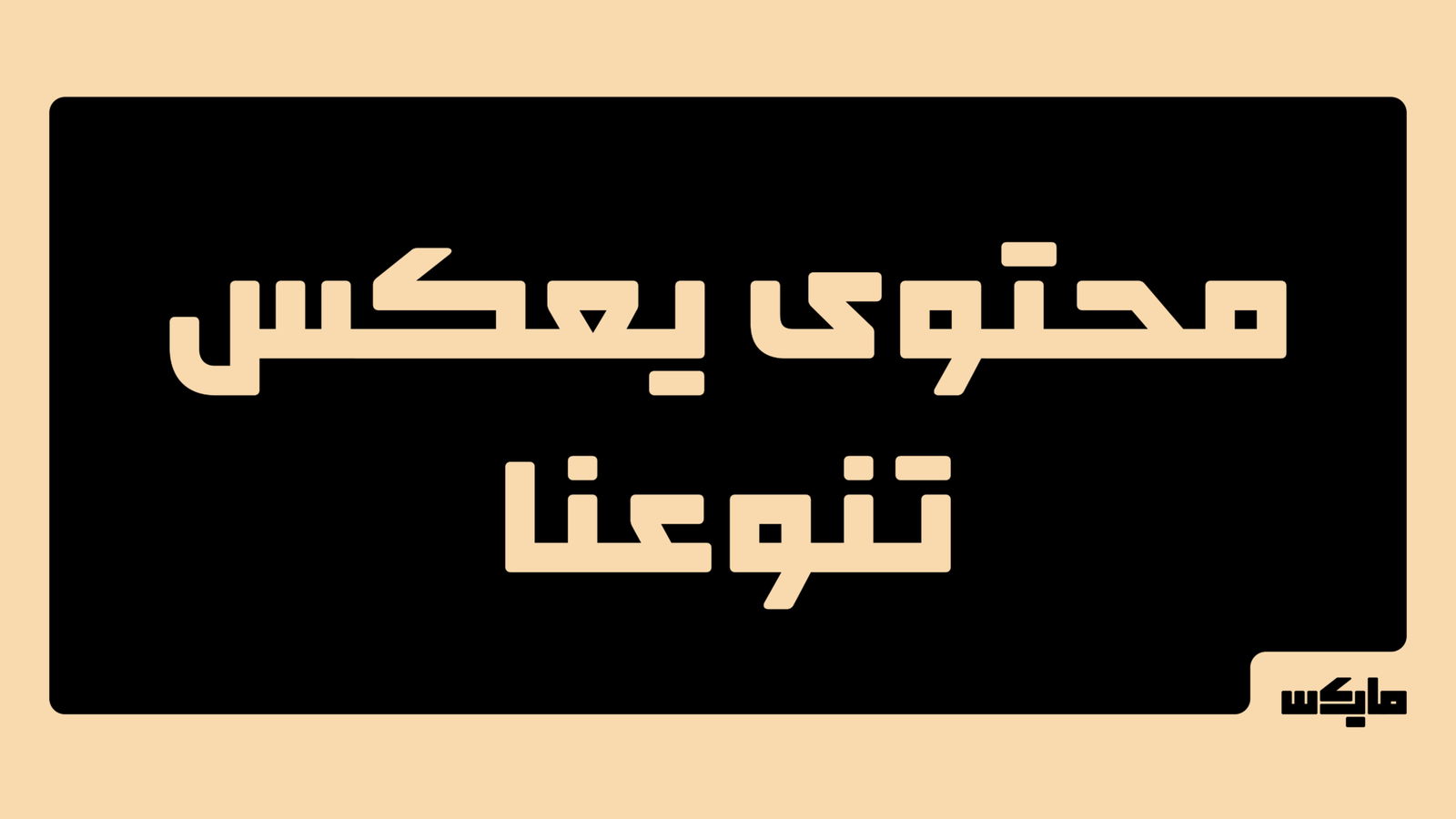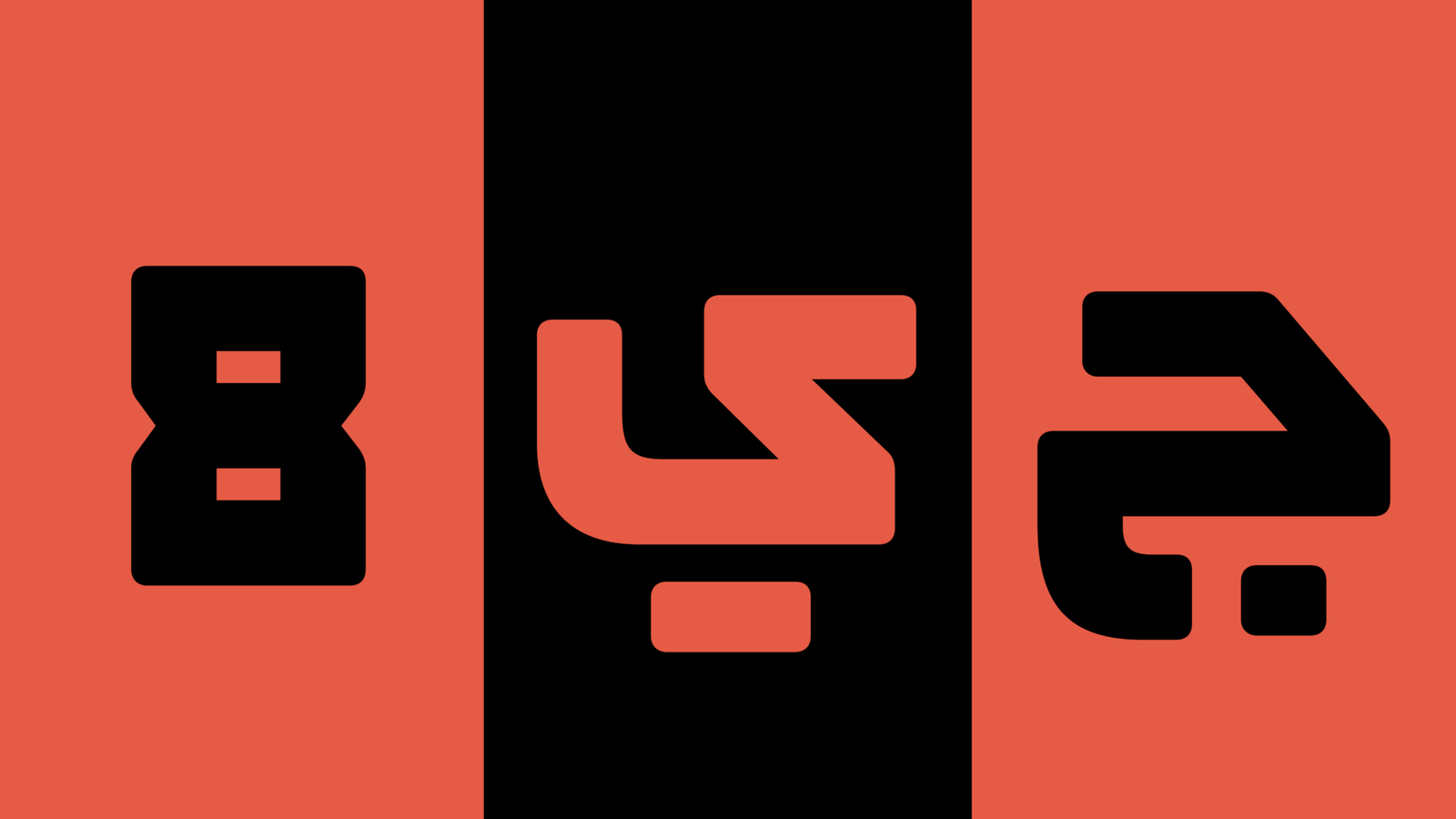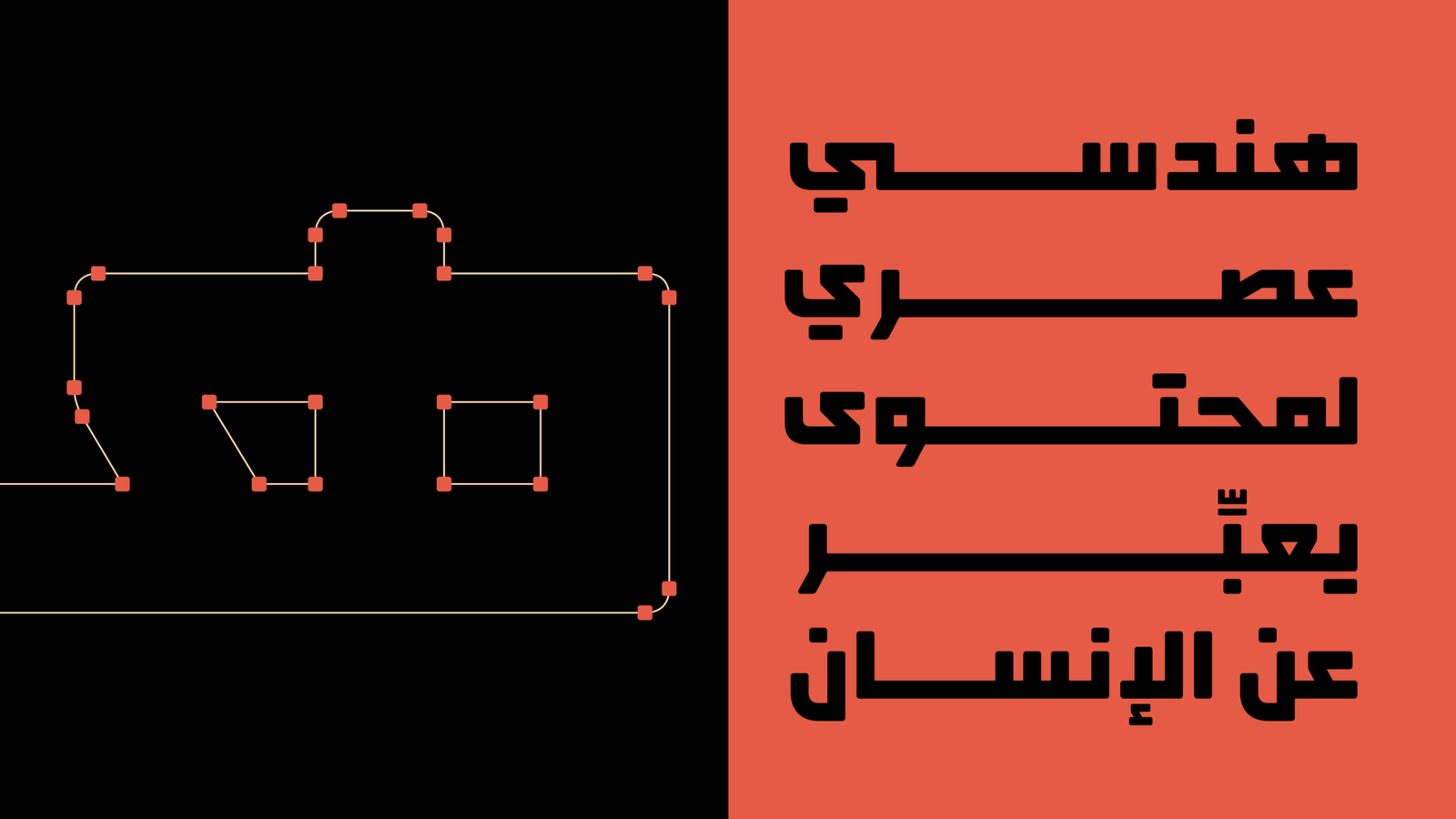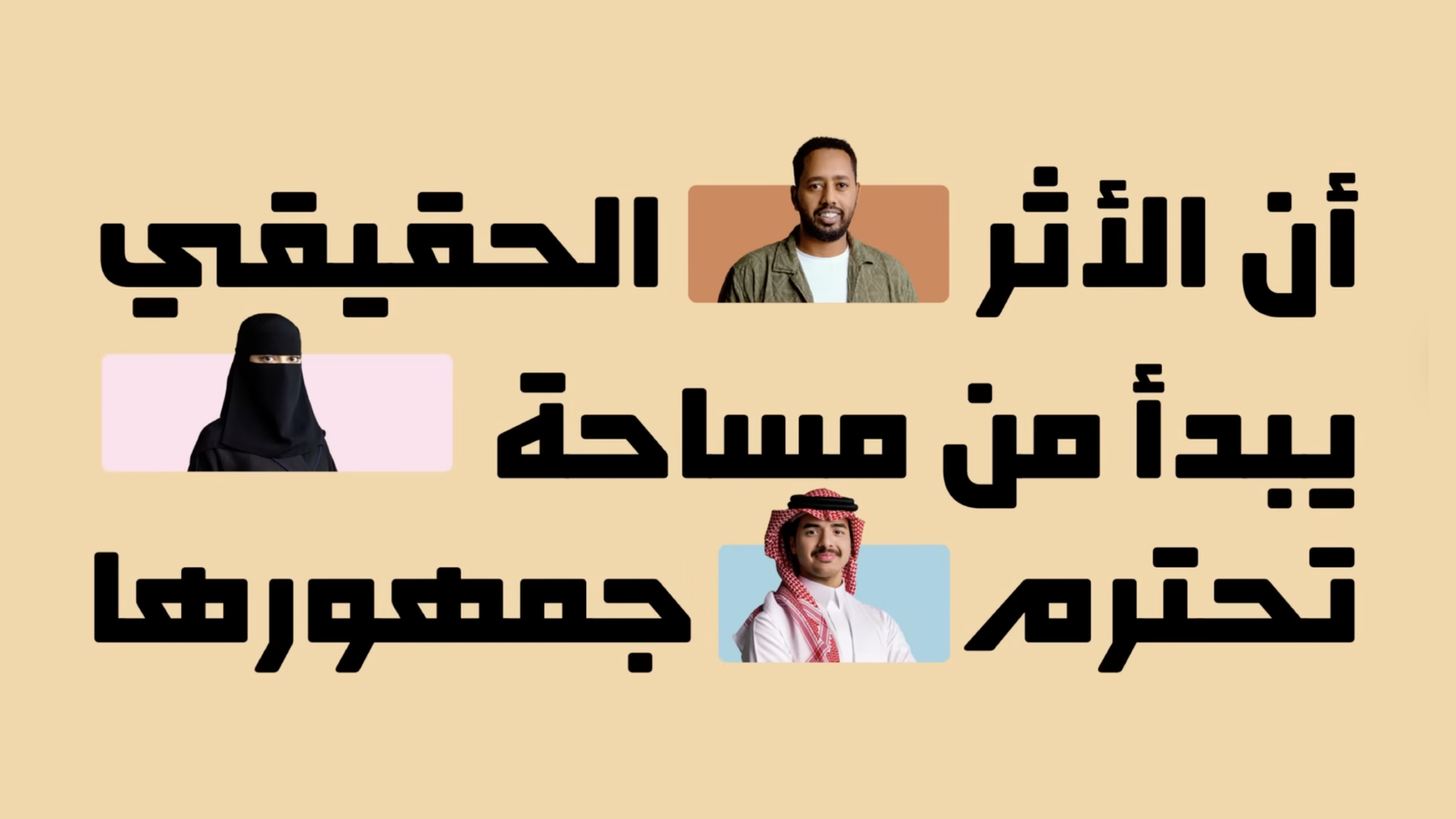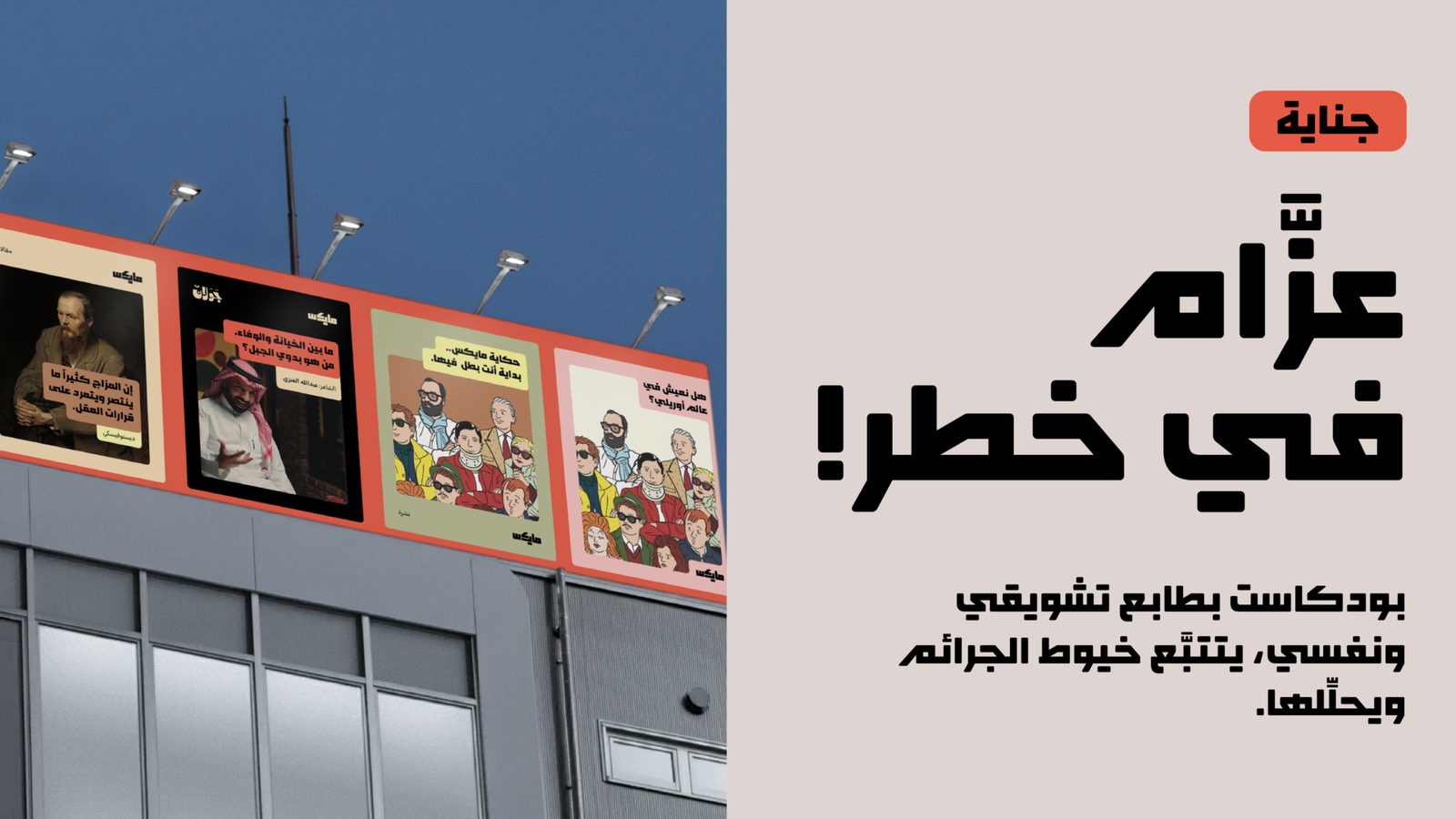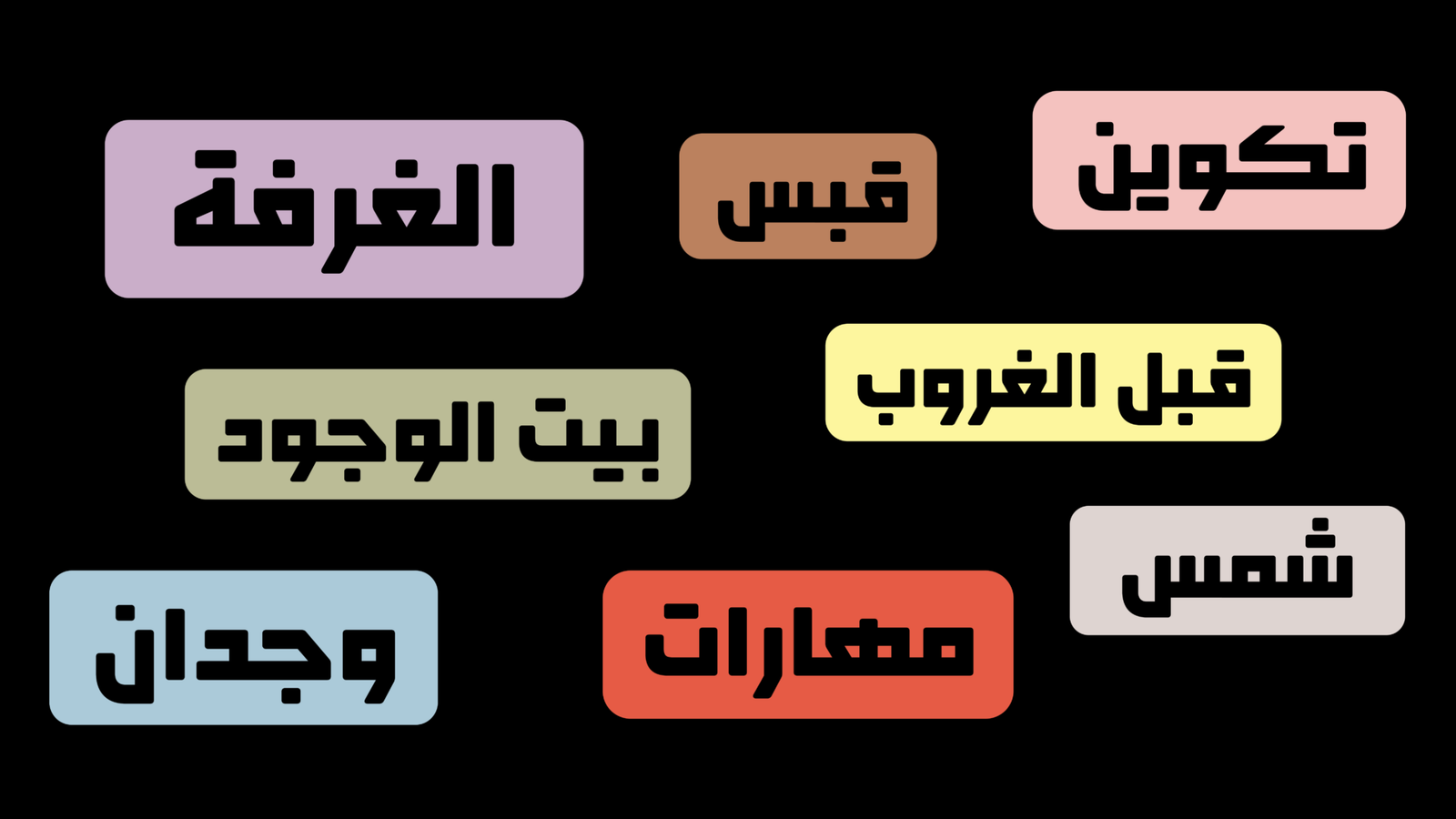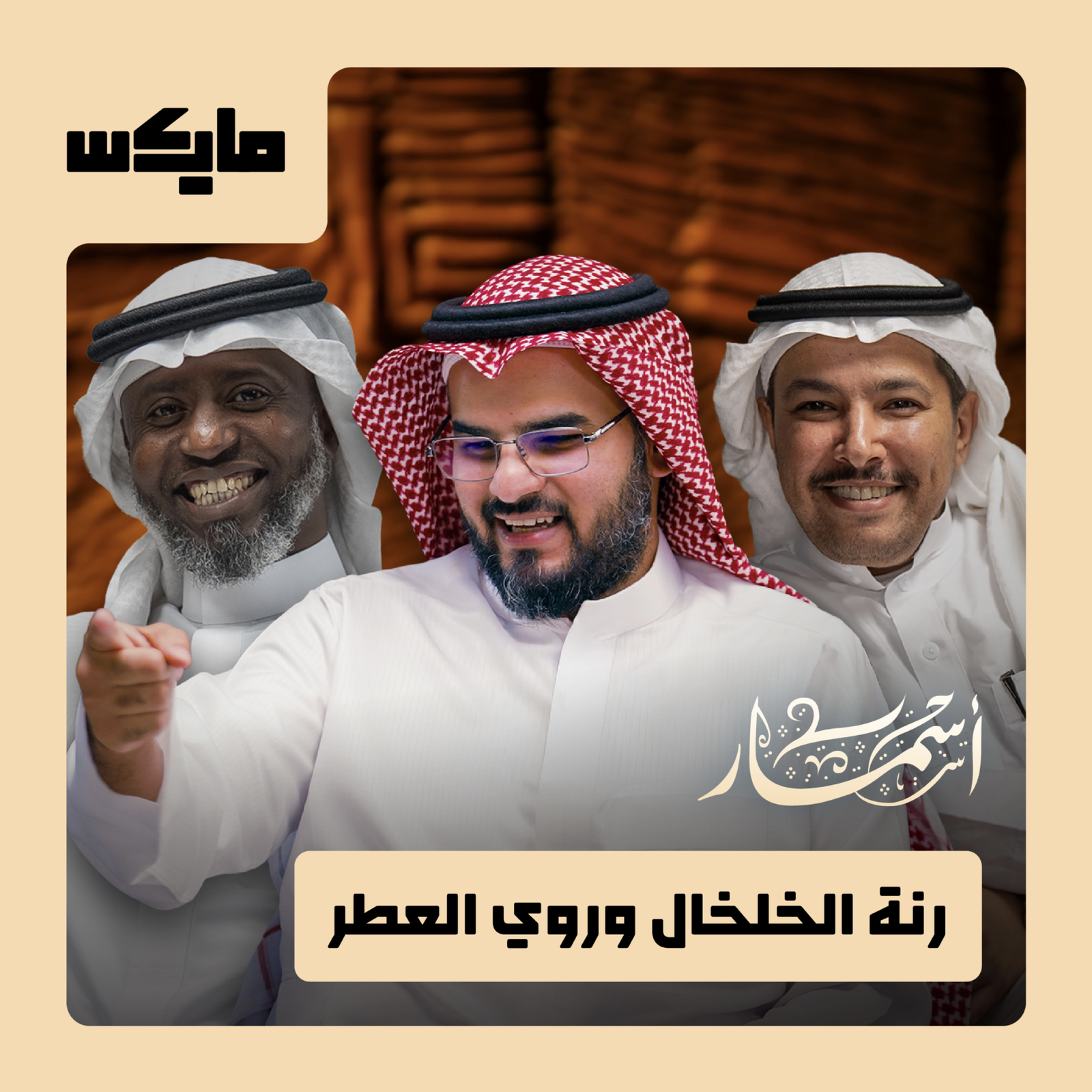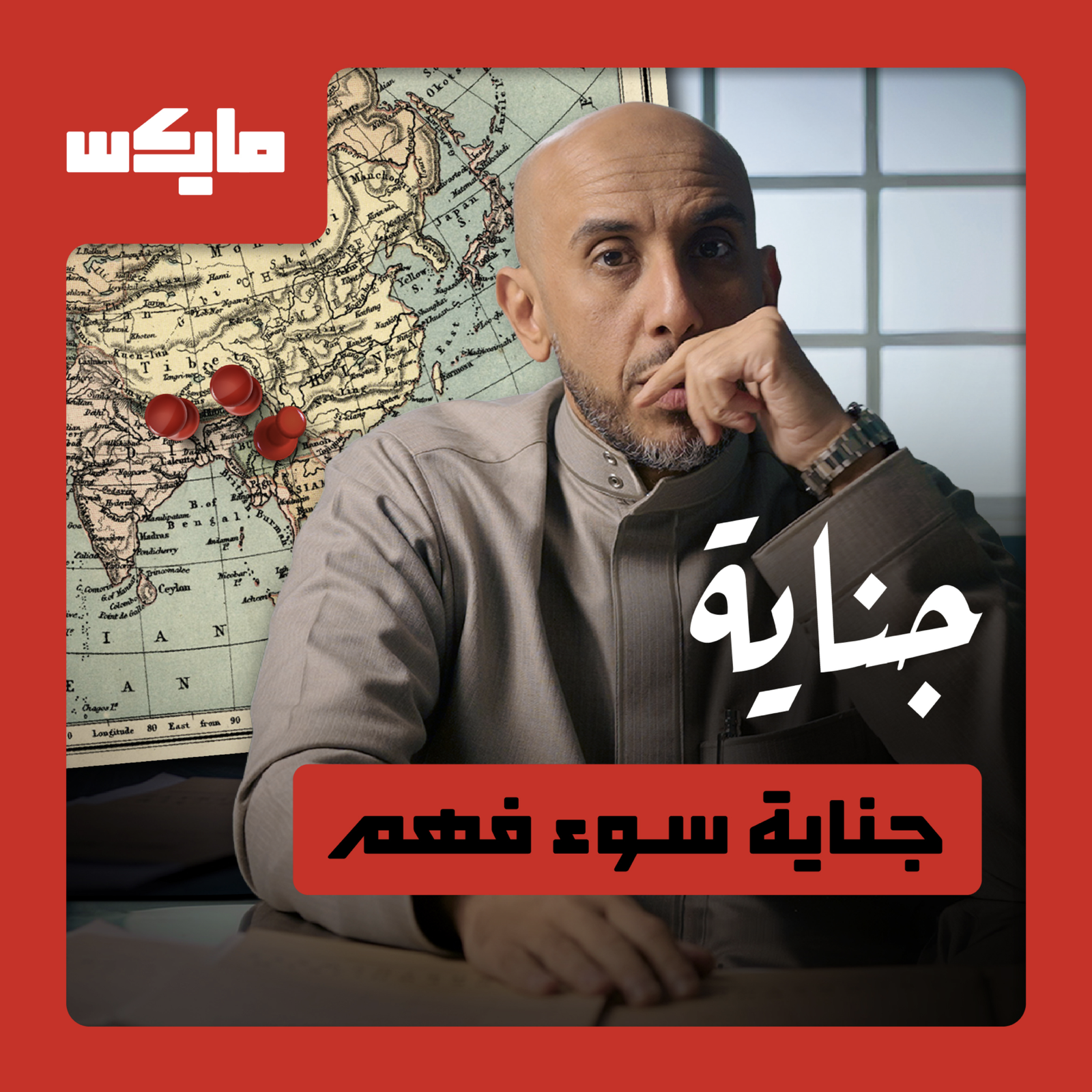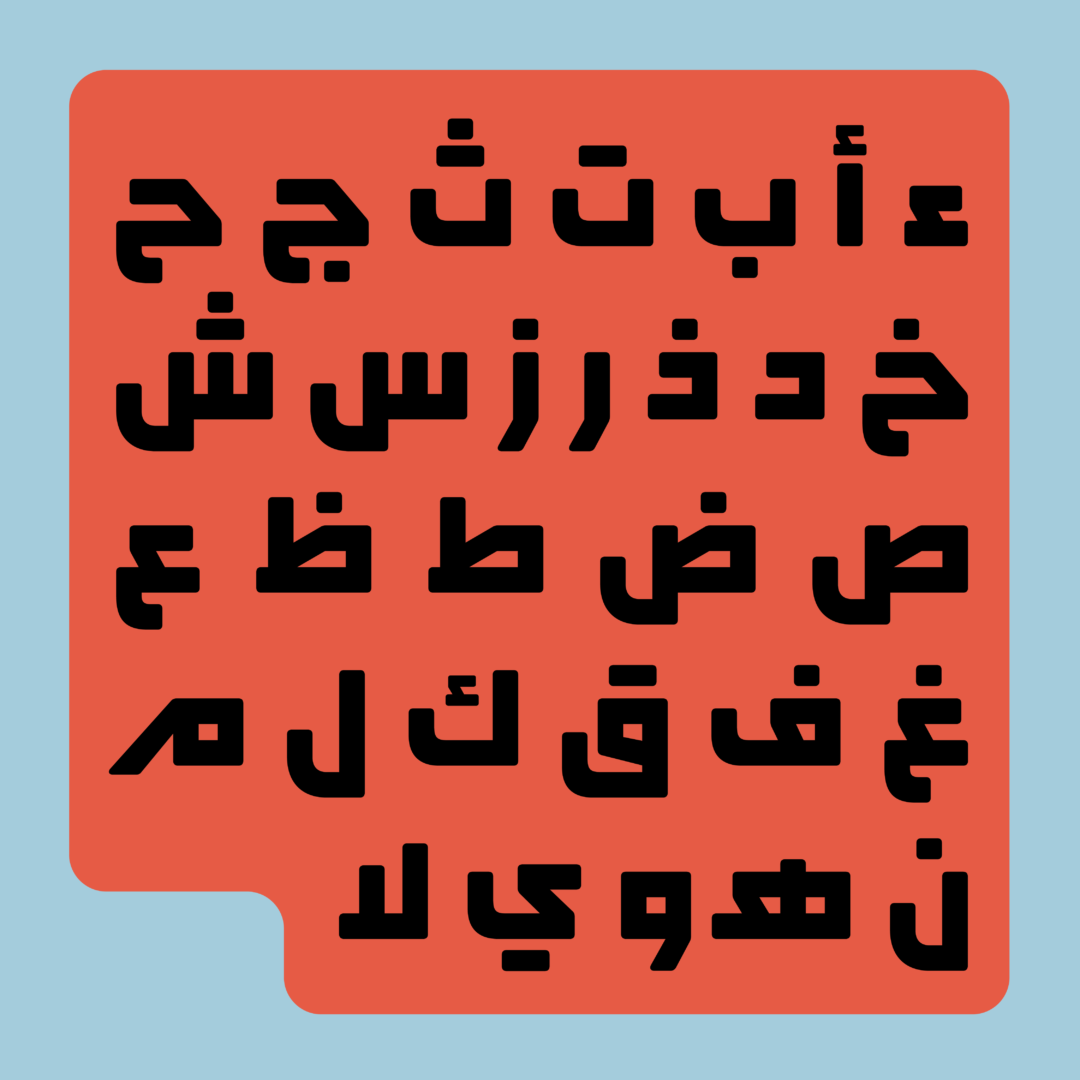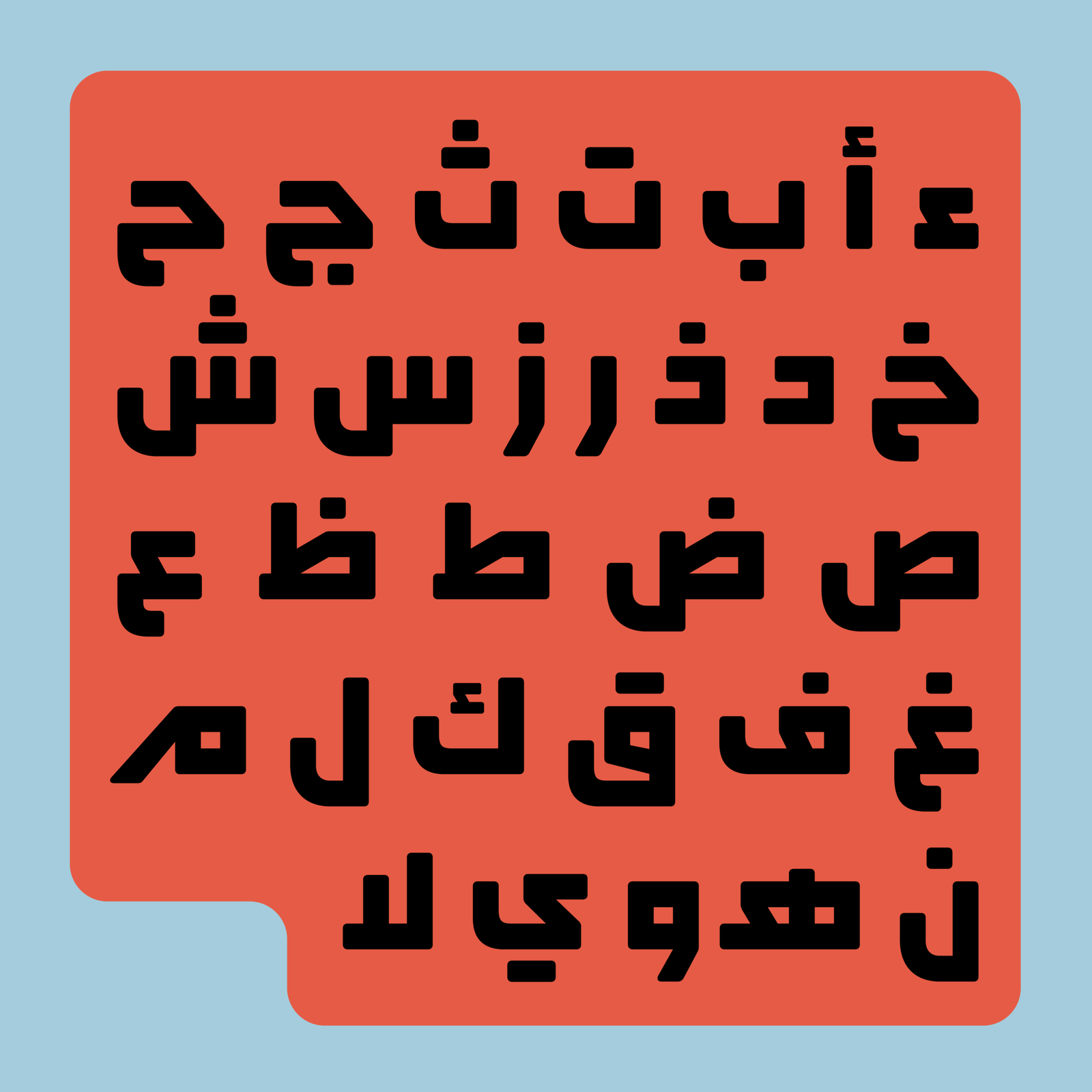
Mics Typeface
At ALMASBAK, we designed the MICS Typeface to serve as the bold visual voice of the brand a leading Arabic podcast network offering end-to-end solutions in content creation.
The typeface was developed in response to the platform’s need for a strong and simple Arabic headline font that would differentiate it and reinforce its visual presence in a highly competitive landscape.
With sharp geometric shapes and cut angles, the typeface reflects MICS bold, modern personality. It was carefully crafted to complement the brand’s wordmark in proportions, visual weight, and overall structure enhancing the consistency of the entire visual system and giving MICS a distinctive tone that is both expandable and repeatable.
The typeface comes in a single, custom-designed weight optimized for headlines. It includes a full set of well-balanced Arabic letters, numerals, and essential symbols offering a practical, integrated solution for the brand’s typographic identity.
More than a display tool, MICS typeface is a core part of the brand’s DNA embodying its energy, confidence, and commitment to bold, forward-thinking Arabic content.